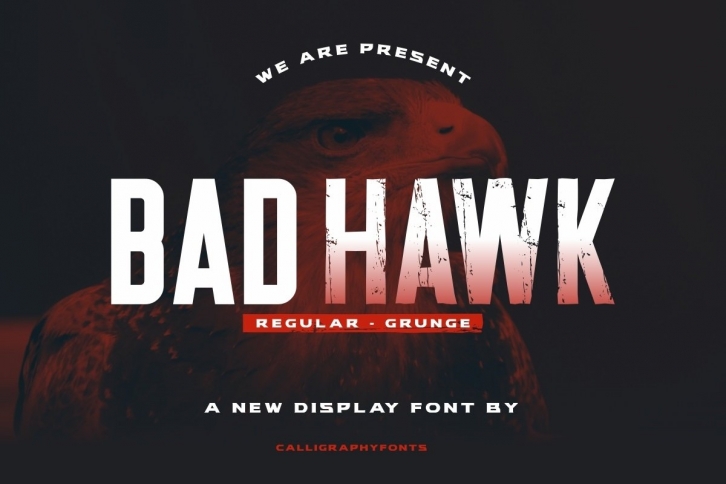
Bad Hawk is a great font that was designed by Calligraphy Fonts. Imagine the amount of combinations you can create using this font! The archive is 10.54 MB and it was released on November 10, 2021. Bad Hawk looks beautiful on wedding invitations, greeting cards, logos, posters, labels, t-shirt designs, logos, business cards and is perfect for use in ink or watercolor works, fashion, magazines, packaging and food menus, children's books and more!